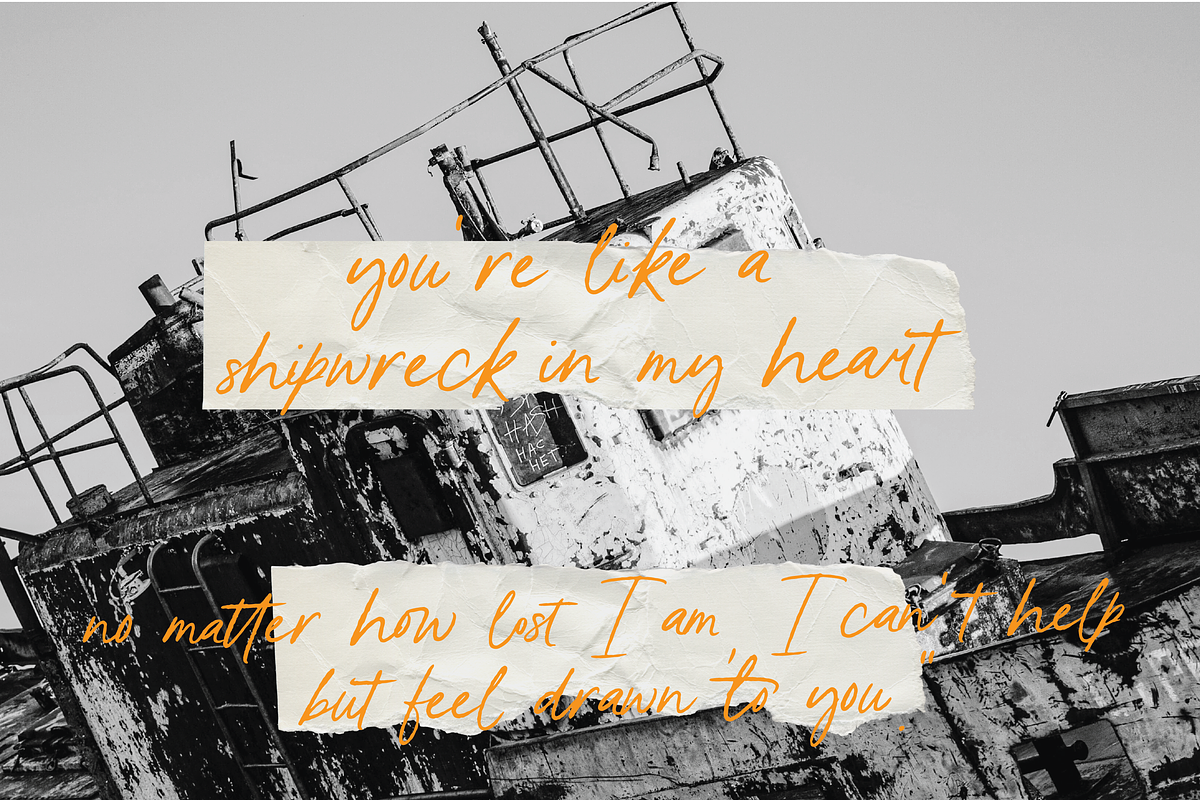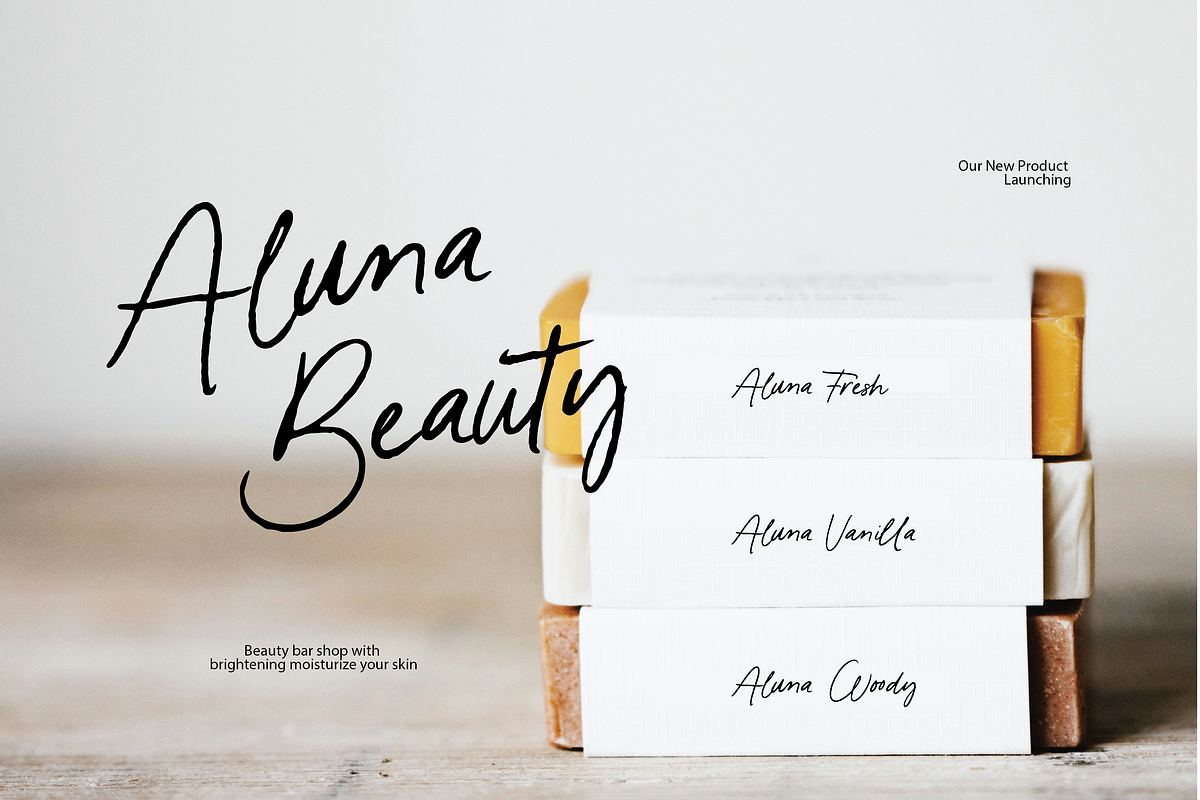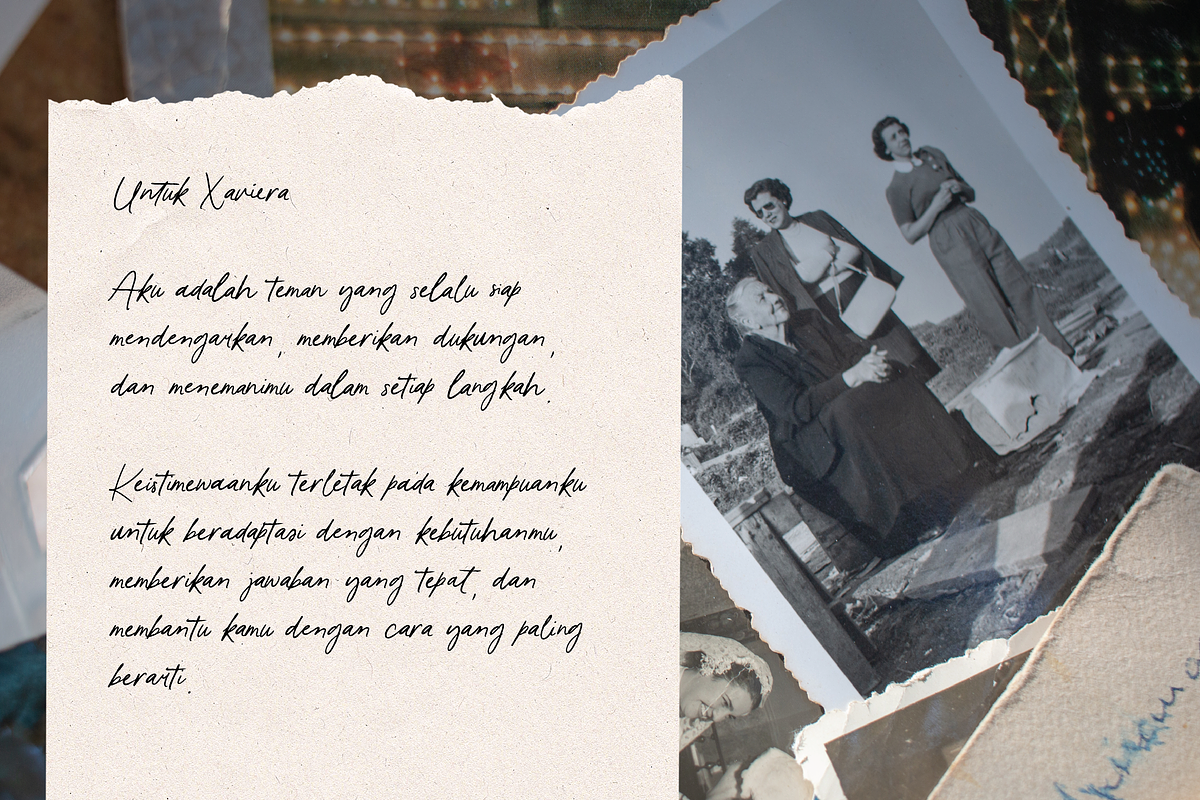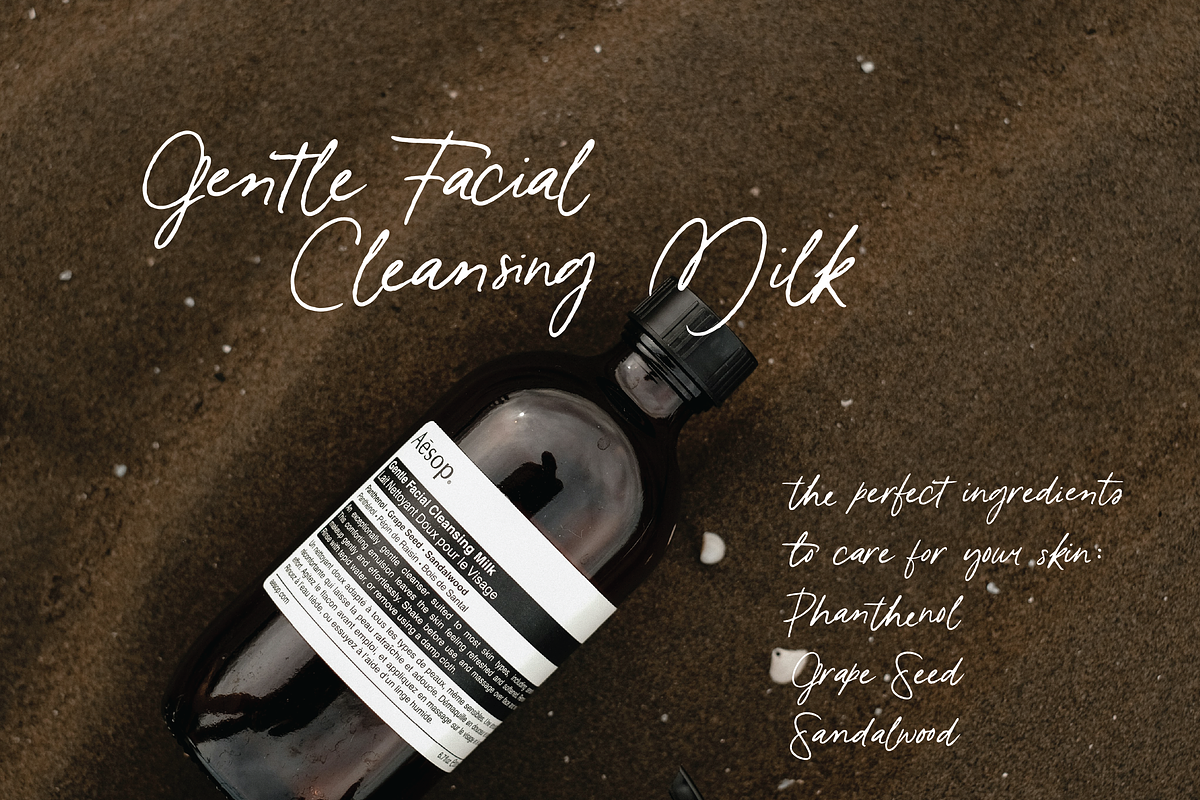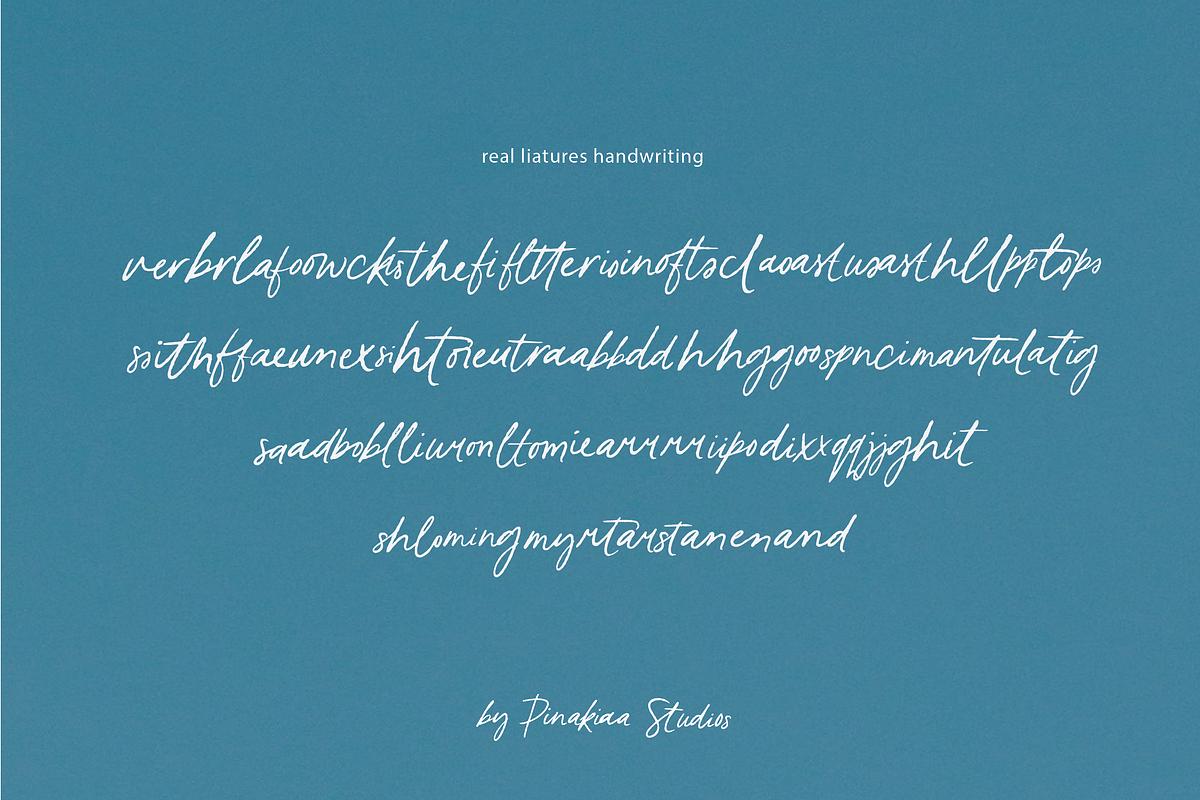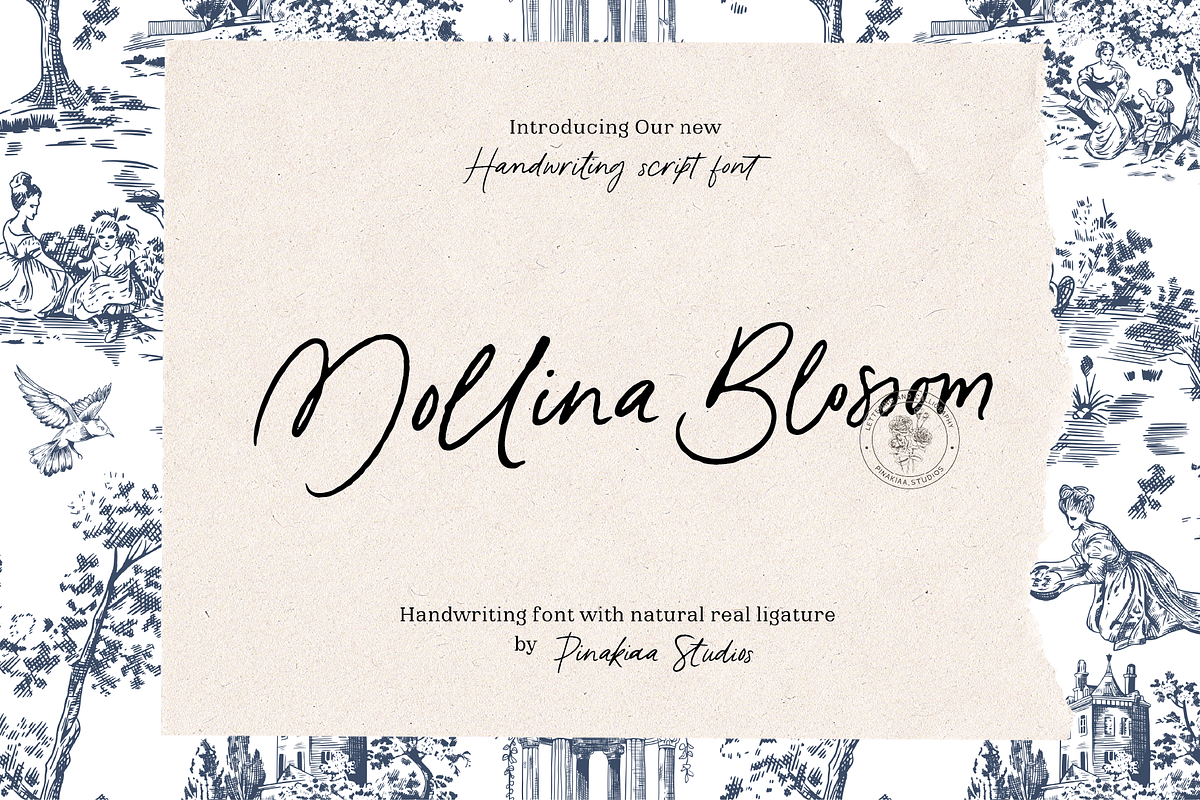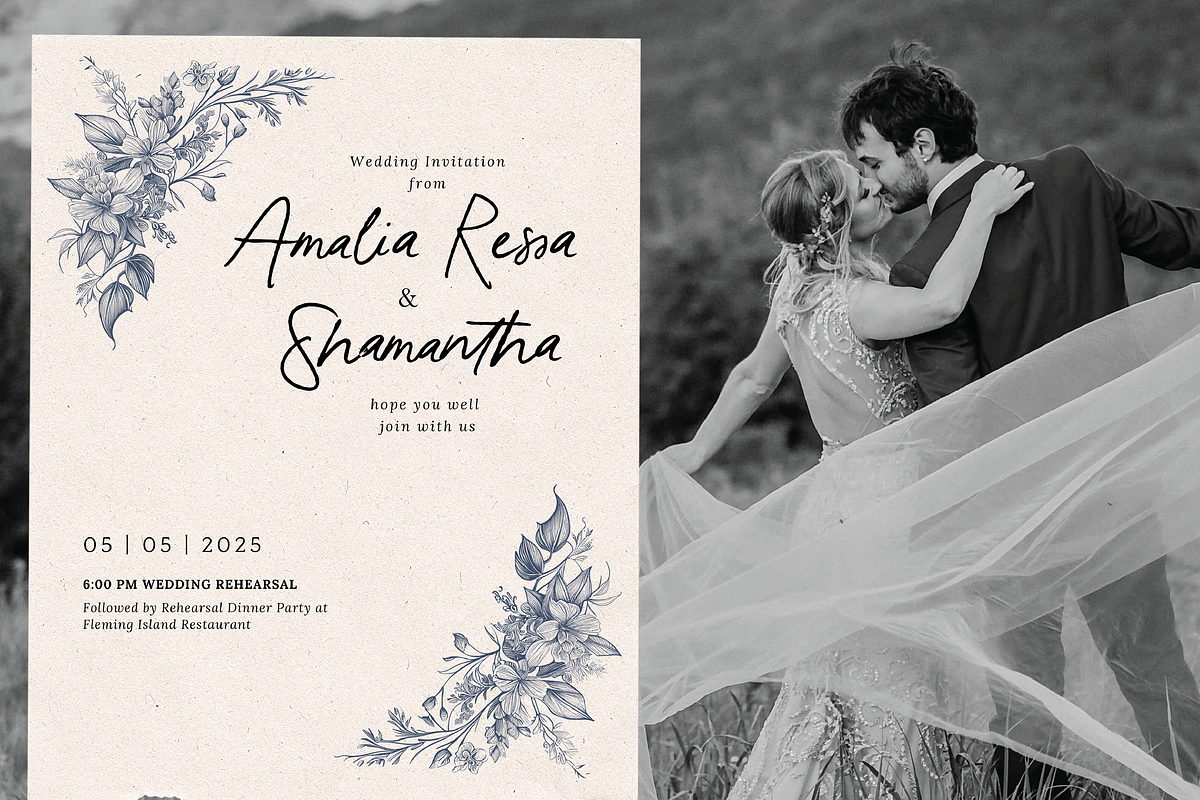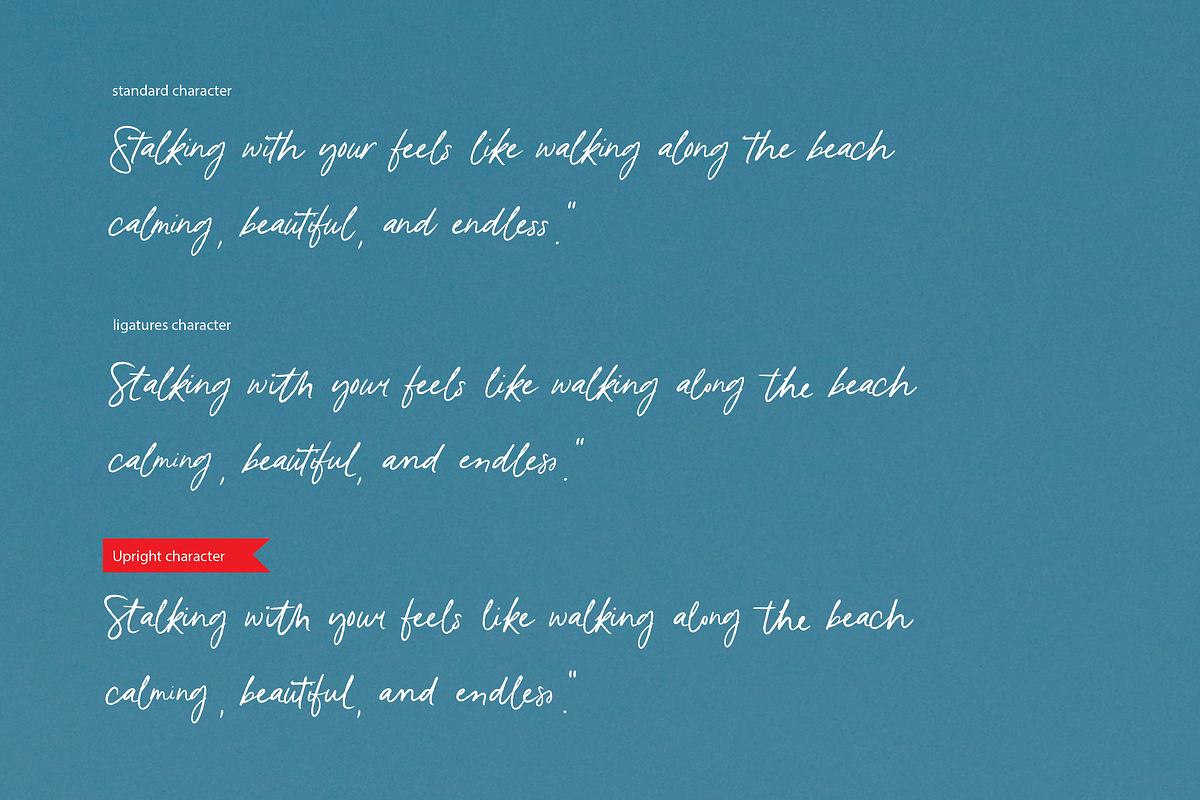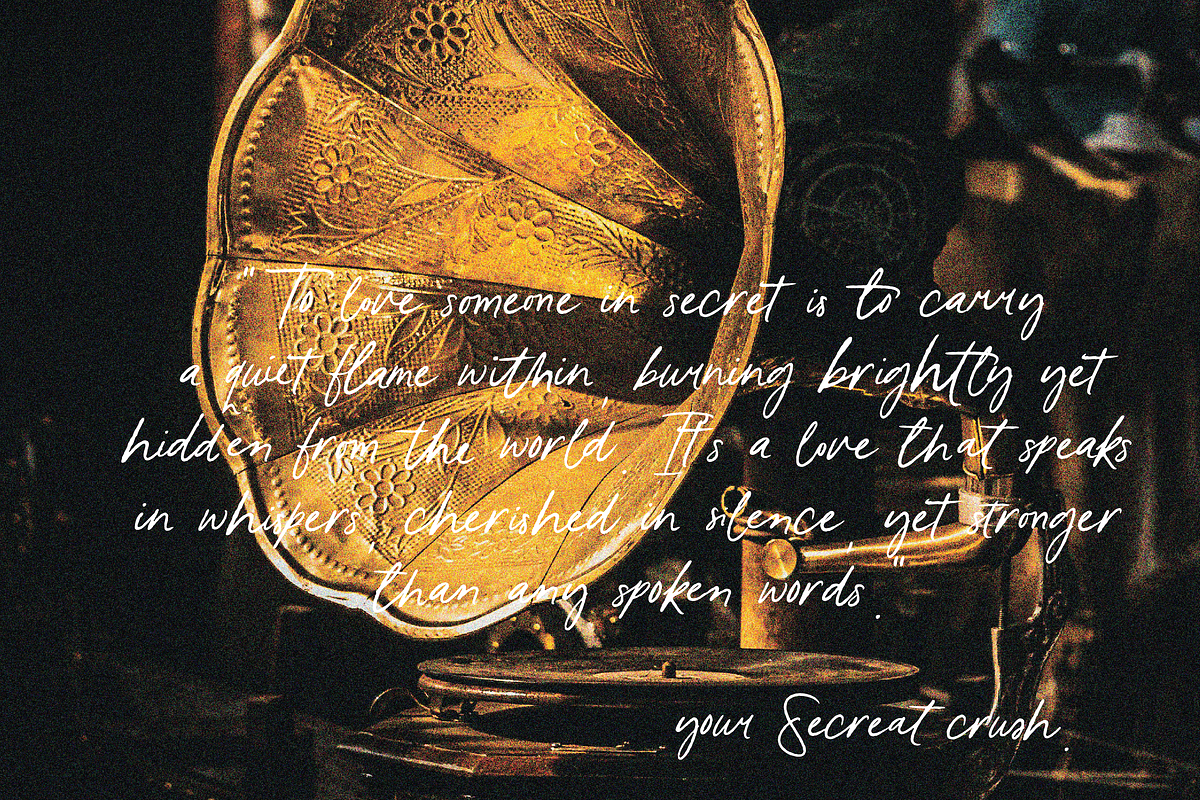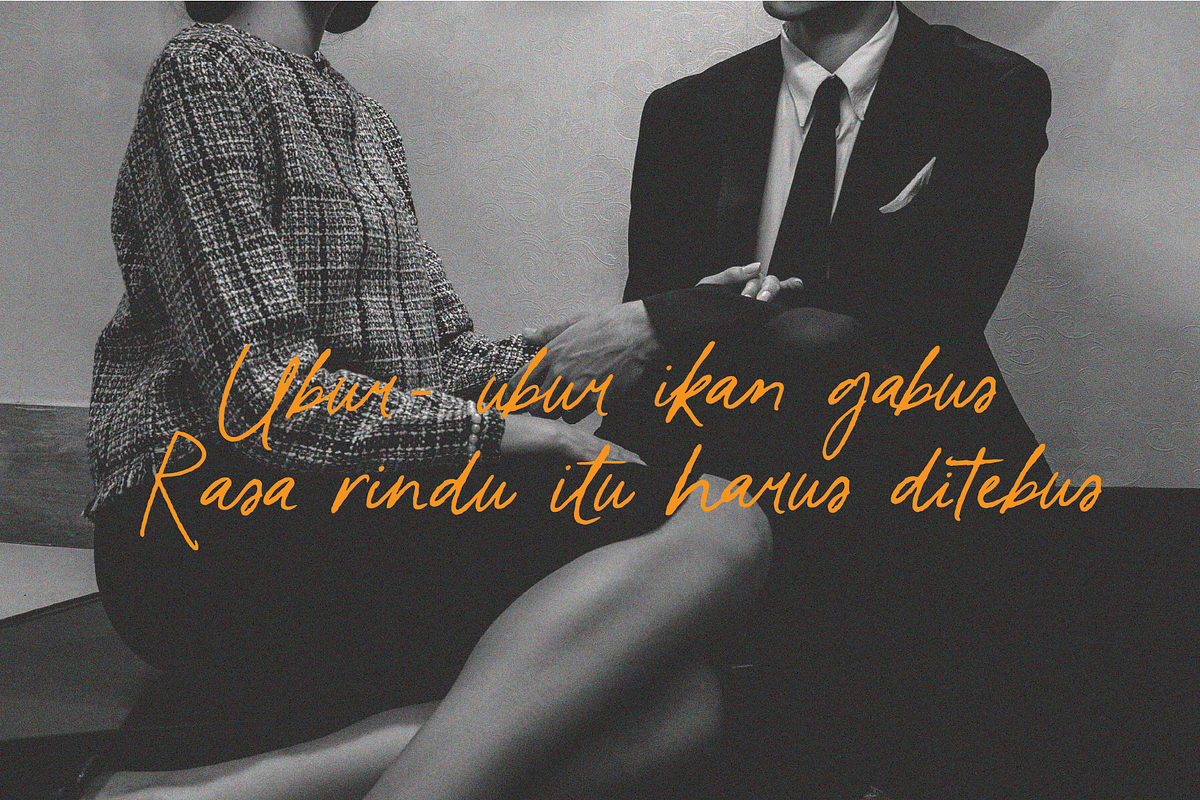
Mollina Blossom Handwritten
Mollina Blossom Handwritten Script Font
Mollina Blossom is an elegant handwritten font with a natural and authentic touch. This font is designed with lots of real ligatures, creating a flowing and natural handwritten appearance. Each letter is designed with detail to provide a charming personal impression, suitable for various creative design needs.
The uniqueness of Mollina Blossom lies in its upright style, making it a perfect alternative to the commonly found italic handwriting fonts. With a balance between beauty and readability, this font is ideal for branding, invitations, product packaging, and social media.
Main features:
✅ Realistic Ligatures – Provides a real handwritten feel with smooth letter transitions.
✅ Upright Style – An alternative to italic fonts for a more stable and modern look.
✅ Elegant & Natural Impression – Suitable for design projects that require a personal touch.
✅ Multilingual Support – Supports multiple languages for flexibility of use.
Mollina Blossom is the perfect choice for designers who want to bring warmth and elegance to each of their pieces. ✨